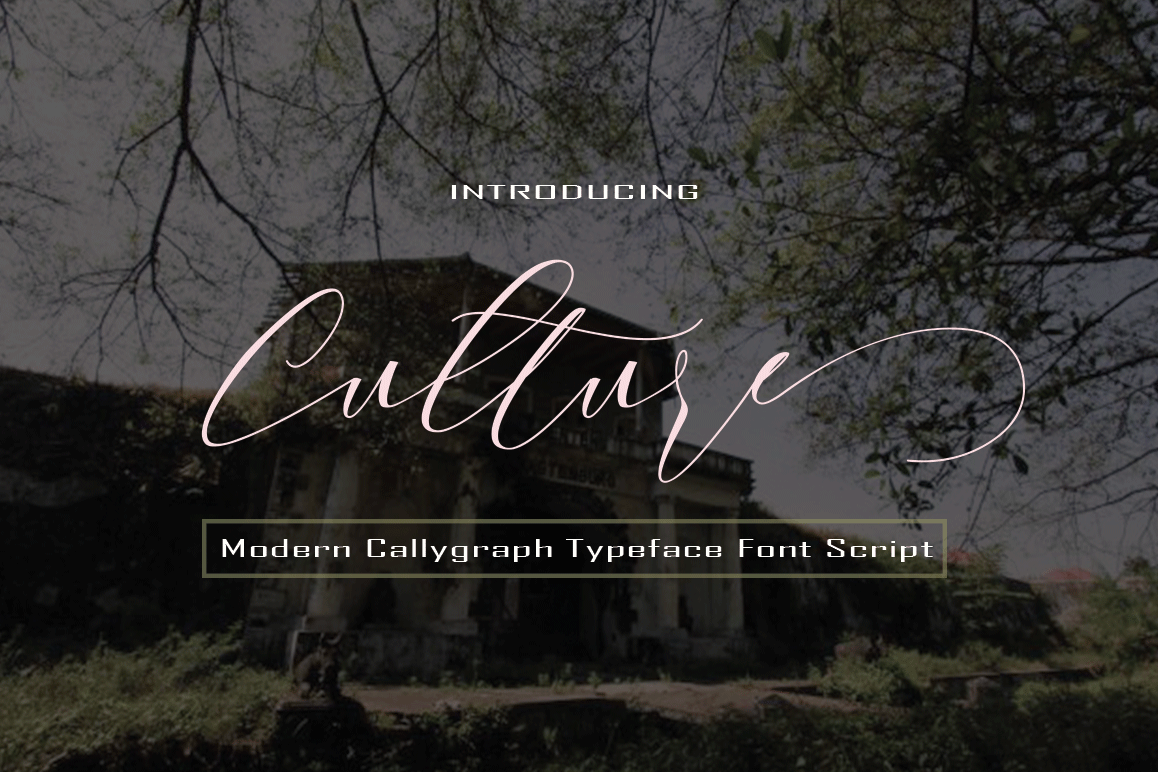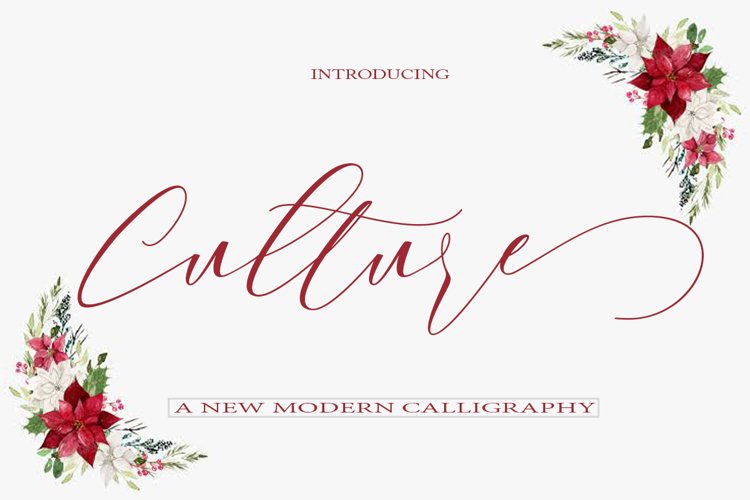
Culture
Culture Scripts are fonts of Culture stylish calligraphy that have a varied base line, fine lines, classic and elegant touches. Can be used for various purposes. Such as title, signature, logo, wedding invitation, t-shirt, letterhead, nameplate, label, news, poster, badge etc.
Culture Script displays stylish calligraphy  alternate characters. Includes initial letters and terminals, alternatives, ligatures and multiple language support.
The Features of this fonts is:
* Standart ligatures
* Stylistic Alternates
* Swash